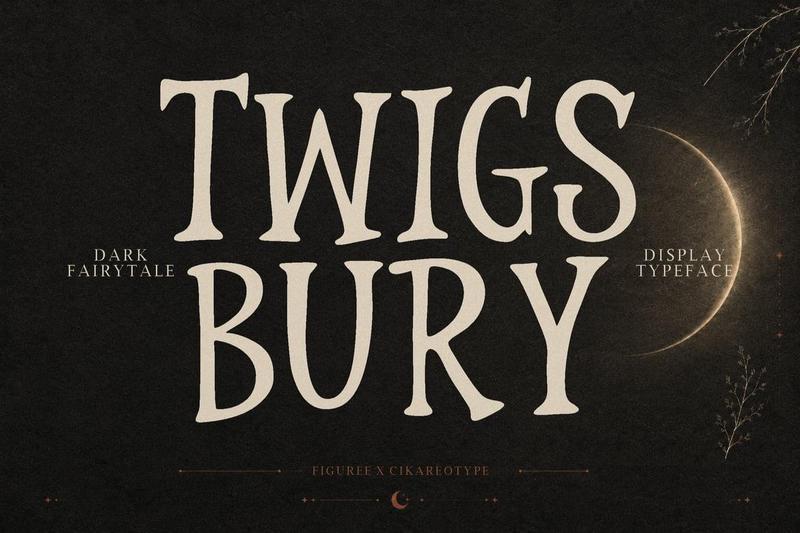
Twigsbury – Dark Fairytale Serif Font Z87W3AL
Step into a world of mystery with Twigsbury Dark Fairytale Serif Font, a display serif typeface inspired by folklore, gothic tales, enchanted forests, and medieval storytelling. Its distinctive letterforms create a dramatic atmosphere, making it suitable for projects that require a dark, mystical, or historical character while maintaining strong readability.
Twigsbury is designed for creatives who need typography that supports visual storytelling. The font works well for book covers, fantasy-themed posters, game interfaces, movie titles, editorial layouts, event graphics, packaging, invitations, and digital content that explores mythical or supernatural themes. Whether you’re creating promotional materials or immersive visual experiences, Twigsbury provides a memorable typographic presence.
The carefully crafted serif details add personality without sacrificing clarity. Each character is designed to work consistently across large headlines and display compositions, making it easy to create eye-catching layouts for both print and digital media. Its multilingual support also allows designers to produce projects for a wider international audience with confidence.
**Key Features**
* Dark fairytale-inspired serif display font
* Uppercase characters included
* Numbers included
* Punctuation and symbols included
* Multilingual support
* Suitable for print and digital projects
* Optimized for headlines, titles, and large typography
* Consistent character spacing for display compositions
**Why Designers Love It**
Twigsbury offers a distinctive visual direction that fits fantasy and gothic-inspired concepts without relying on overly decorative elements. Designers appreciate its ability to establish atmosphere quickly, allowing typography to become a central part of the composition rather than simply supporting it.
The uppercase character set creates bold, structured headlines that remain readable across various layouts. Combined with complete numbers, punctuation, symbols, and multilingual support, the font is practical for posters, book covers, presentations, menus, promotional graphics, editorial pages, streaming thumbnails, seasonal campaigns, and game-related visuals.
Its balanced serif construction also makes pairing with minimalist sans serif fonts straightforward, giving designers flexibility when building modern layouts with a fantasy-inspired tone.
**Final Thoughts**
If your project calls for typography that reflects dark folklore, medieval legends, enchanted settings, or gothic storytelling, Twigsbury Dark Fairytale Serif Font is a versatile addition to your font collection. Its combination of expressive serif forms, multilingual support, and broad file compatibility makes it suitable for creative projects across print and digital platforms. Create memorable titles, immersive promotional materials, and story-driven visuals with a typeface designed to reinforce atmosphere through typography.